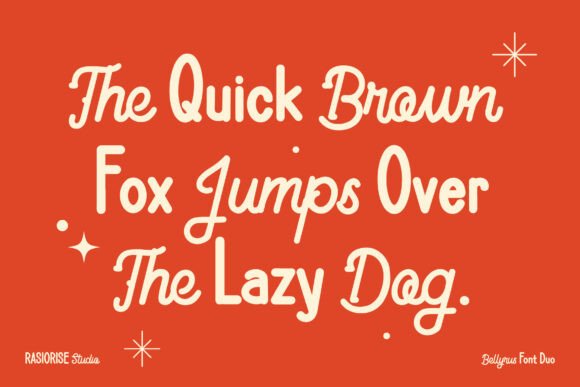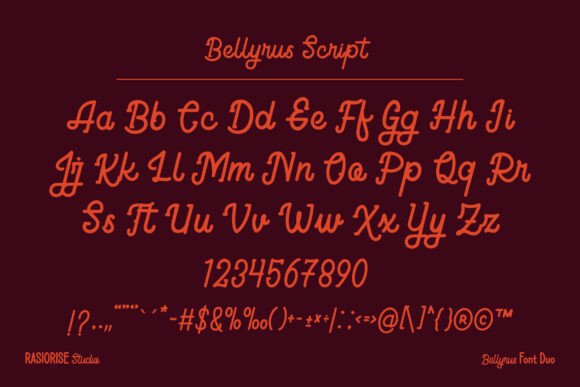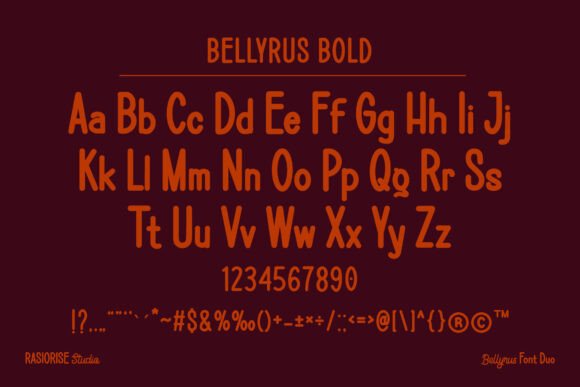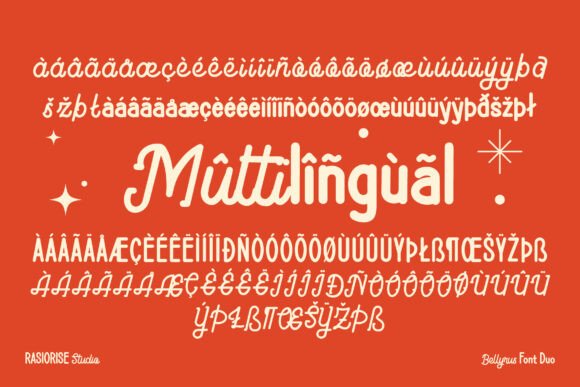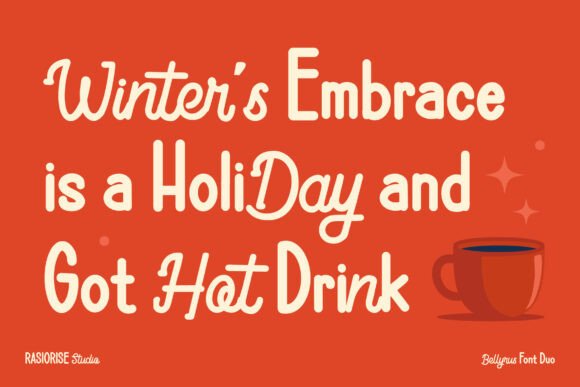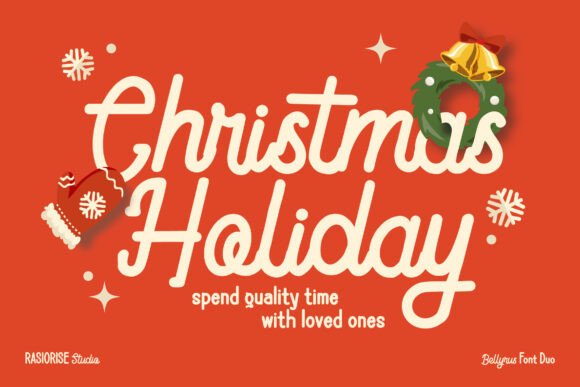
Introducing Bellyrus Font: The Ultimate Holiday Typeface
Are you looking for a font that captures the essence of Christmas and Winter? Look no further than Bellyrus Font, a stunning Handwritten Font that combines the best of both worlds – a modern Script with a Bold and Rounded Sans-Serif typeface. This font duo is perfect for designers and crafters who want to add a touch of holiday cheer to their projects.
Inspired by the Magic of Christmas and Winter
Bellyrus Font is inspired by the festive and playful vibes of Christmas and Winter. This handdrawn Script font is designed to evoke the feeling of a snowy winter wonderland, with its bold and rounded lines, and playful curves. The font features several combinations to create a unique and eye-catching typography that’s perfect for holiday-themed projects.
Bellyrus Font is incredibly versatile and can be used for a wide range of projects, including:
- Christmas vibes and Holiday season projects
- Logotype and branding
- Book Covers and magazine titles
- Gift Cards and Greeting Cards
- Merchandise and packaging labels
Easy to Read and Beautiful to Look At
One of the standout features of Bellyrus Font is its easy-to-read character font. The font is designed to be clear and legible, making it perfect for body text and headings. The characters are also beautifully crafted, with a level of detail that will make your projects stand out.
Unleash Your Creativity with Bellyrus
Bellyrus Font is the perfect tool for designers and crafters who want to unleash their creativity and add a touch of holiday magic to their projects. With its unique and playful design, this font duo is sure to inspire you to create something truly special.
Key Features of Bellyrus Font
- Handwritten Script font with a modern twist
- Combines a bold and rounded Sans-Serif typeface
- Inspired by Christmas and Winter vibes
- Easy-to-read character font
- Perfect for a wide range of projects, including logotype, book covers, and merchandise
Why Choose Bellyrus Font?
There are many reasons why Bellyrus Font stands out from the crowd. Here are just a few:
- Unique and playful design that’s sure to grab attention
- Highly versatile and can be used for a wide range of projects
- Easy to read and beautiful to look at
- Inspired by the magic of Christmas and Winter
Get Ready to Make Your Projects Shine
If you’re looking for a font that will add a touch of holiday cheer to your projects, look no further than Bellyrus Font. With its unique and playful design, easy-to-read character font, and versatility, this font duo is sure to make your projects shine.
| Font Name | Bellyrus Font |
| Author | Rasiorise Studio |
In conclusion, Bellyrus Font is a must-have for designers and crafters who want to add a touch of holiday magic to their projects. With its unique and playful design, easy-to-read character font, and versatility, this font duo is perfect for a wide range of projects. So why wait? Get your hands on Bellyrus Font today and unleash your creativity!